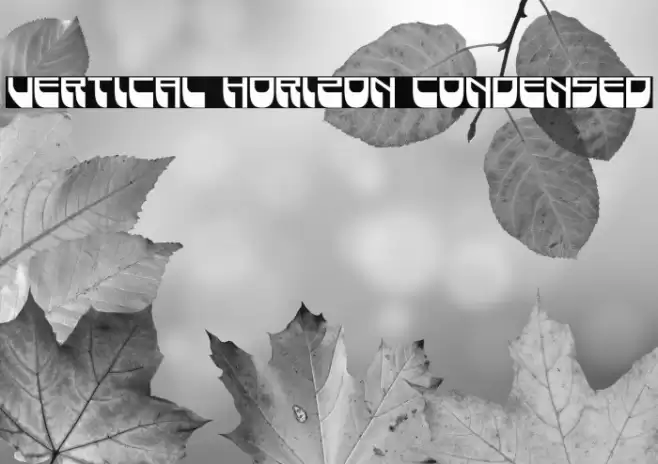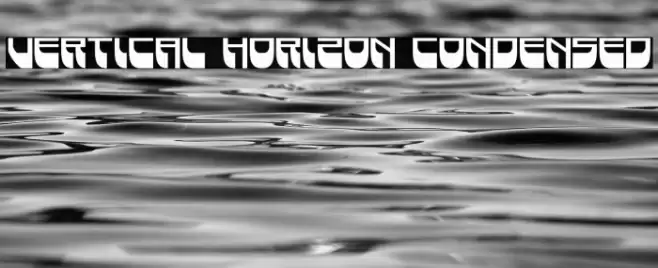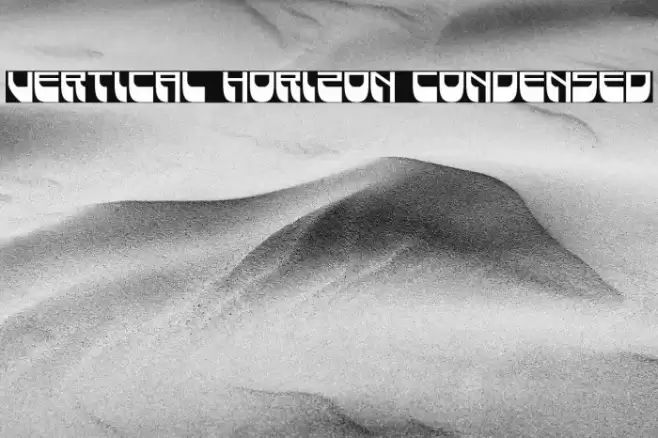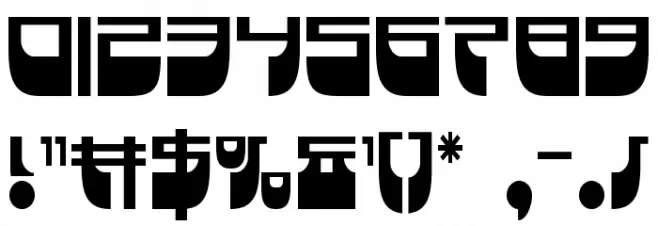
Vertical Horizon Condensed Font
Vertical Horizon Condensed Description
This font exhibits a bold and futuristic design with a distinctly condensed structure. The characters are crafted with sharp angles and geometric forms, giving them a modern and edgy appearance. The uppercase and lowercase letters share a similar style, maintaining consistency across the alphabet. The numbers and special characters follow the same design principles, ensuring uniformity. The font's unique style makes it stand out, with its thick strokes and minimal contrast between thick and thin lines. The overall look is sleek and contemporary, ideal for projects that require a strong visual impact.
A bold, futuristic font with a condensed and geometric design from Uncategorized fonts.
- Proposed Projects: Ideal for sci-fi themed designs, technology branding, video game titles, and modern posters.
- Character Spacing: Tight